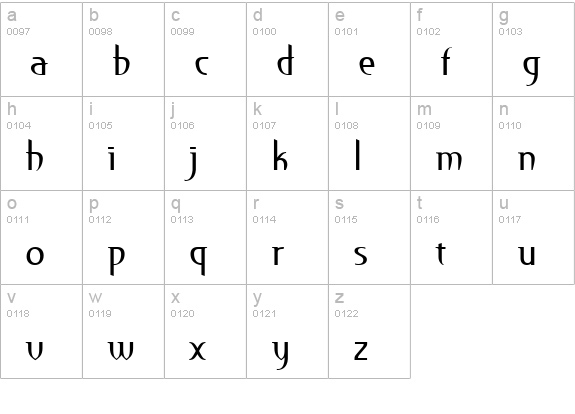
PFRoyale Regular Font Details
PFRoyale Regular is the standard, neutral variant in the PFRoyale typeface family \xE2\x80\x94 well suited to general body text, paragraphs, and standard typographic work.
PFRoyale Regular font is a versatile and elegant typeface that exudes a sense of sophistication and modernity. Its clean lines and balanced proportions make it ideal for a wide range of design projects, from branding and advertising to editorial and web design. The timeless appeal of PFRoyale Regular font is sure to make your text stand out and leave a lasting impression on your audience. Best of all, PFRoyale Regular font is available for free download at FontsMarket.com. This means that you can easily incorporate this stylish font into your creations without breaking the bank. Don't miss out on the opportunity to enhance your designs with the timeless elegance of PFRoyale Regular font – download it today and elevate your projects to the next level.